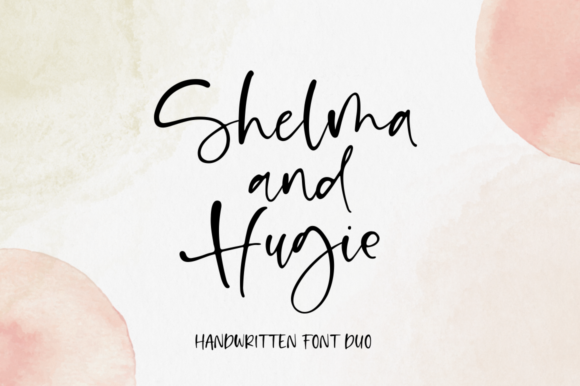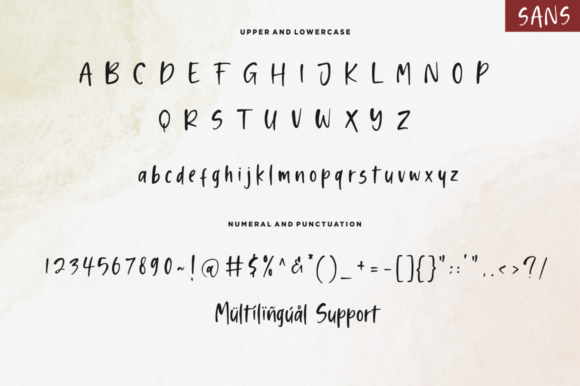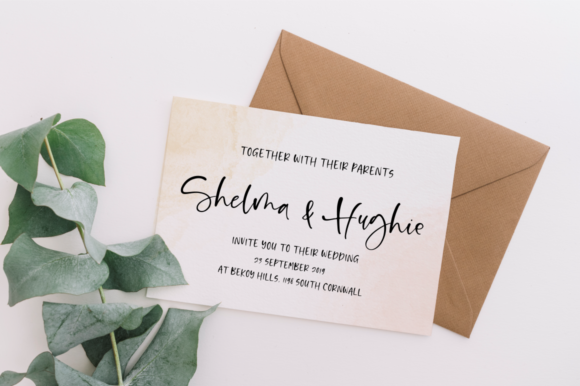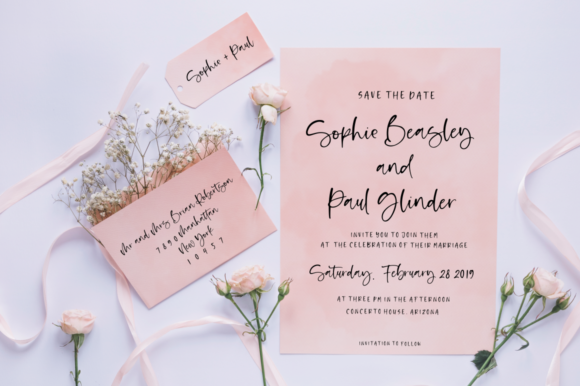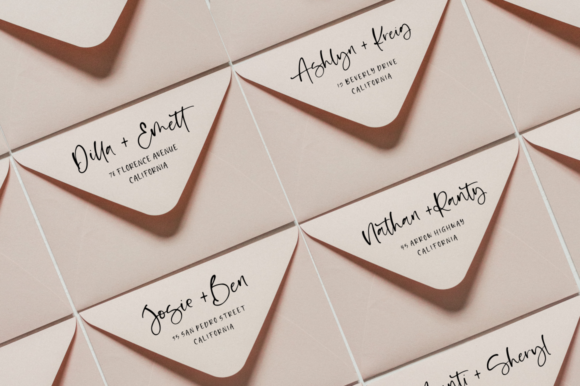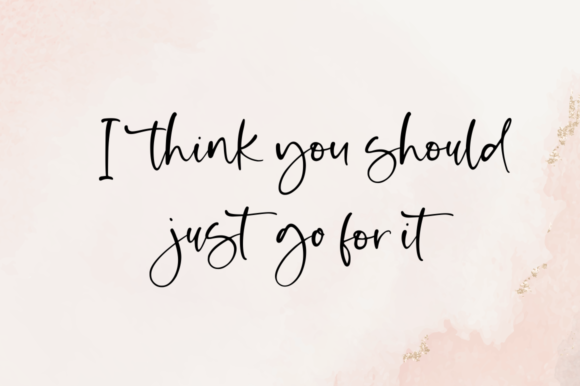
About Shelma and Hugie Font
Shelma and Hugie is a natural and elegant handwritten font. It is the best choice for creating eye catching logos, branding and quotes. Every letter has a unique and beautiful touch, which will make your design come alive!